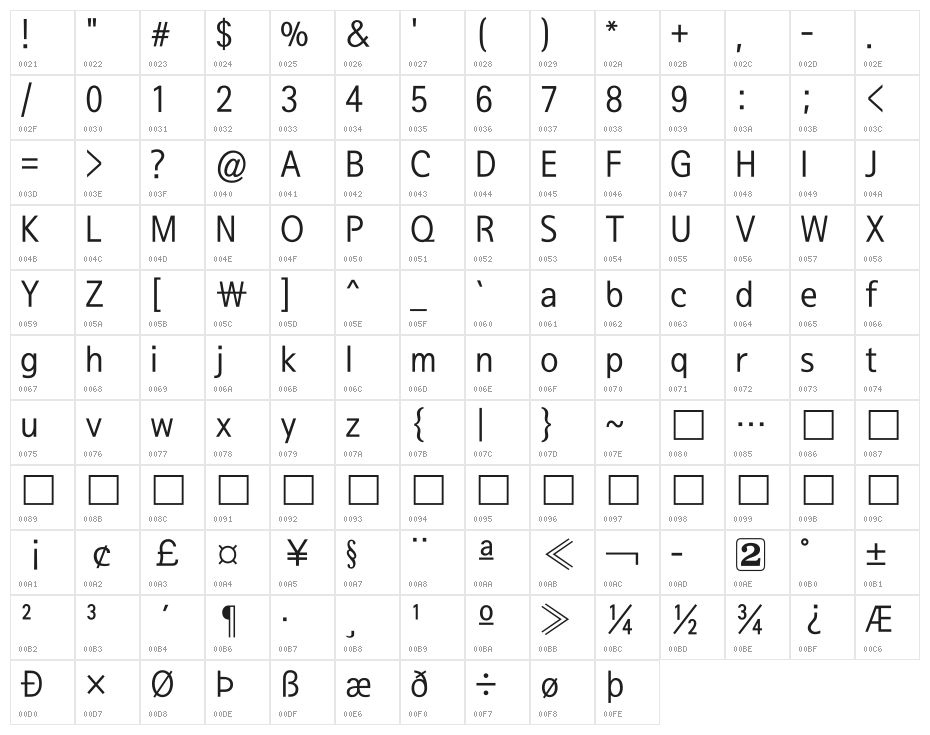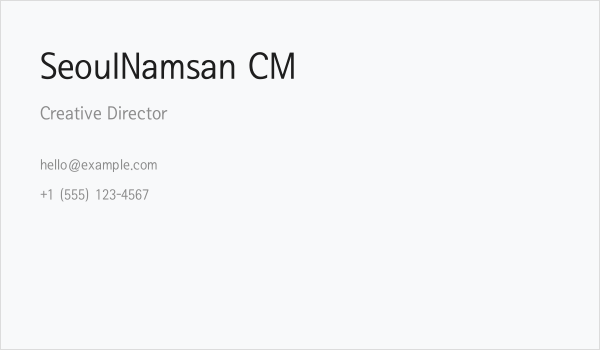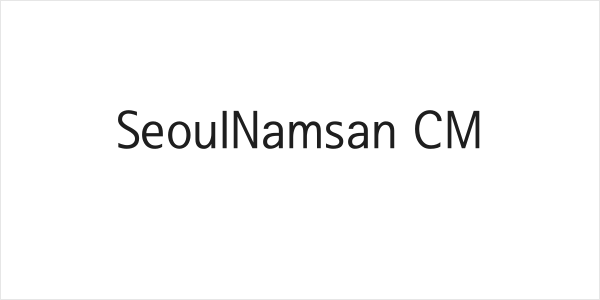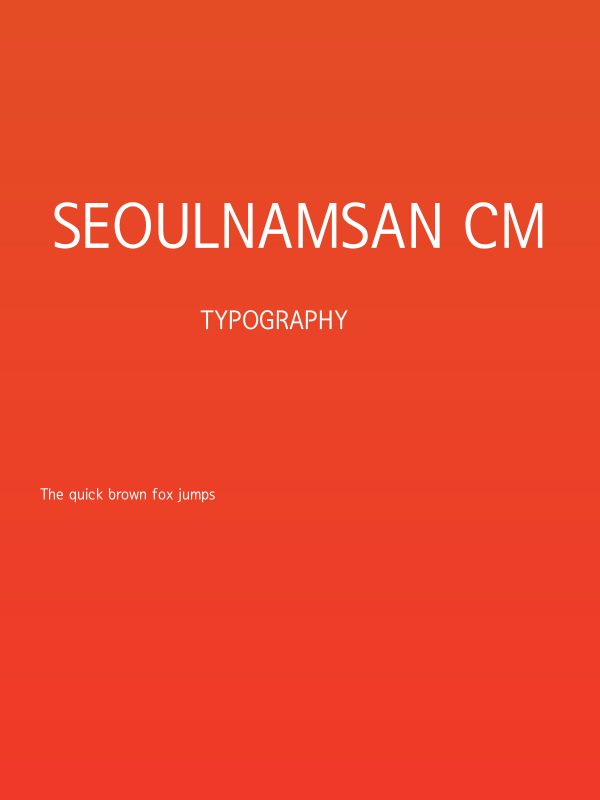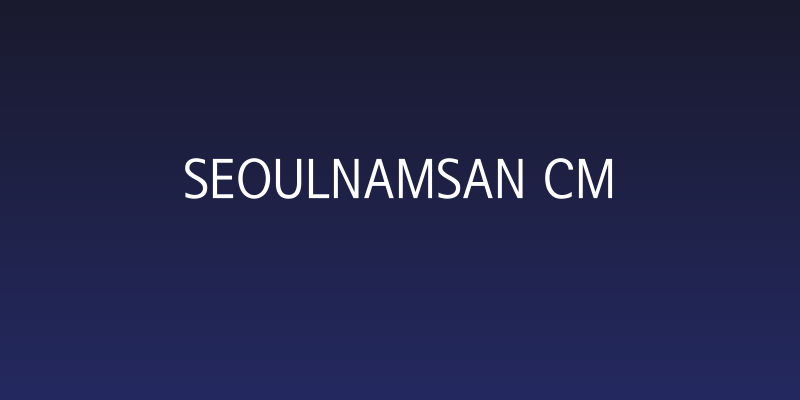
SeoulNamsan CM Font
SeoulNamsan CM Description
This font features a clean and modern sans-serif design, characterized by its simplicity and readability. The letterforms are uniform and balanced, with consistent stroke widths that give it a harmonious appearance. The uppercase letters are bold and assertive, while the lowercase letters maintain a friendly and approachable feel. The numerals are clear and easy to read, making them suitable for various applications. Special characters are well-integrated, ensuring versatility in usage. Overall, this font exudes a contemporary and professional vibe, making it ideal for digital and print media.
| Proposed Projects | Ideal for corporate branding, web design, digital content, and print materials. |